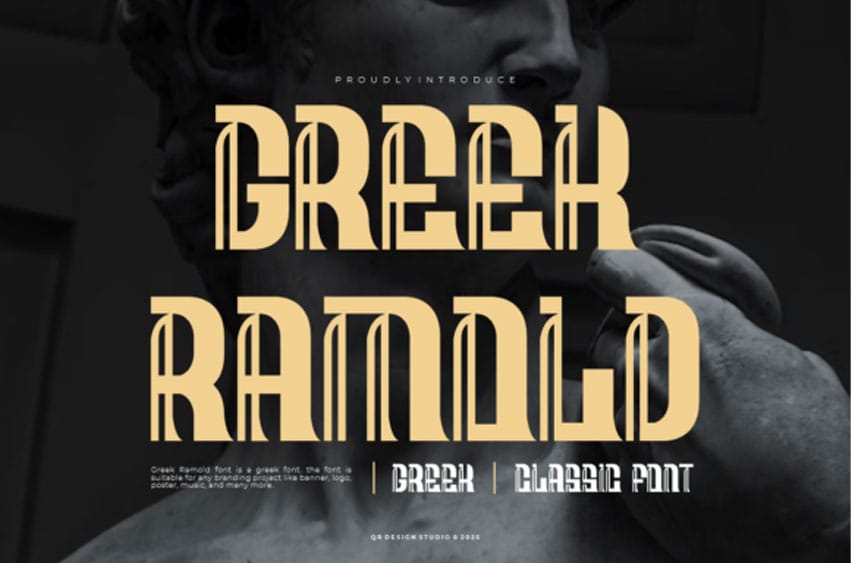
Greek Ramold Font combines ancient Greek influences with modern display aesthetics, creating a regal and impactful typeface.
With strong verticals and stylized letterforms, it evokes classical elegance, making it perfect for editorial headers, logos, museum promotions, or historical branding.